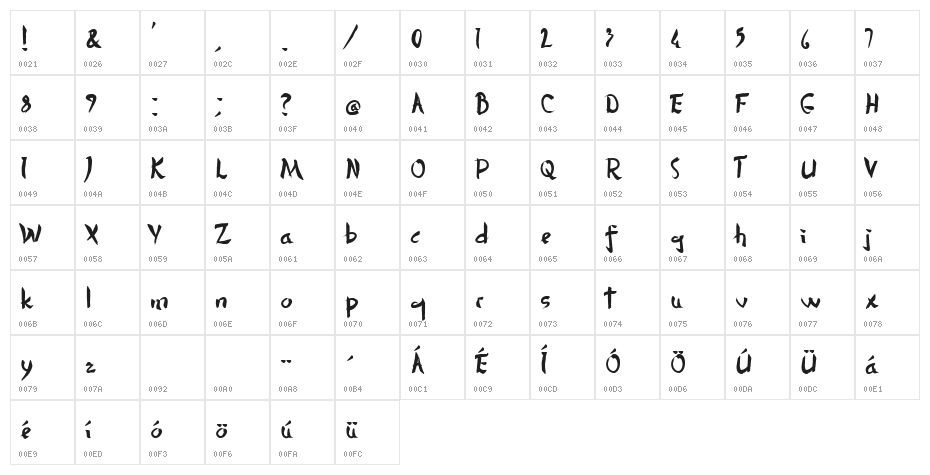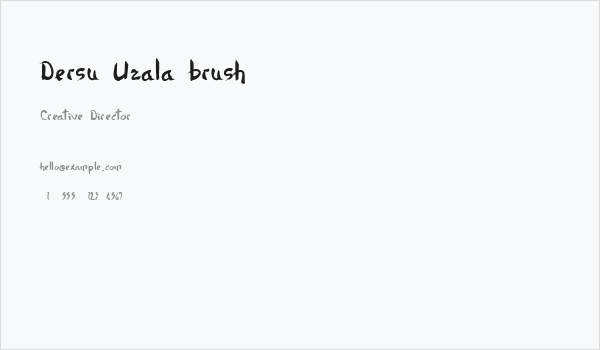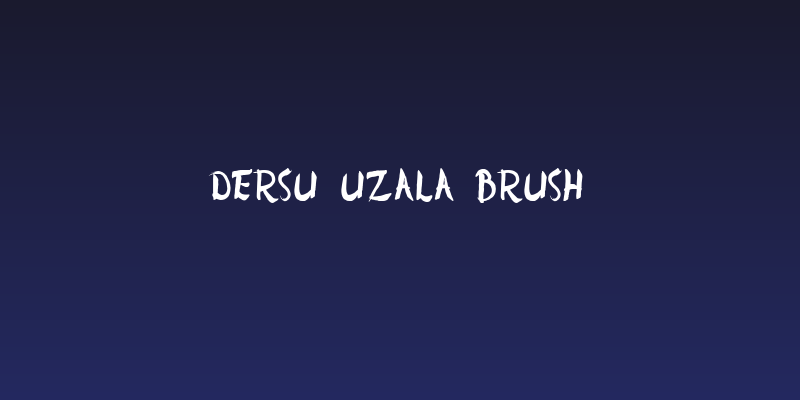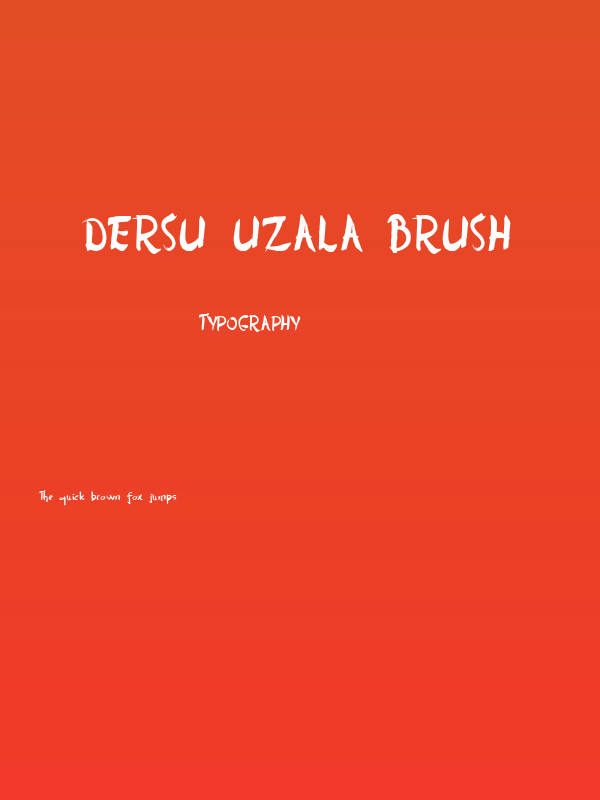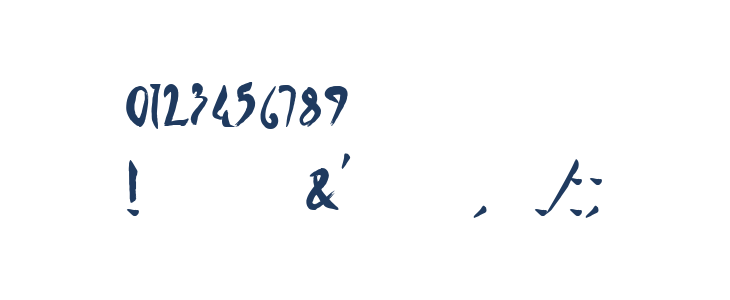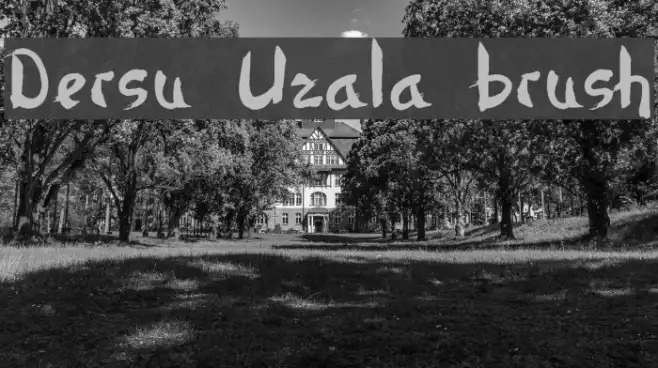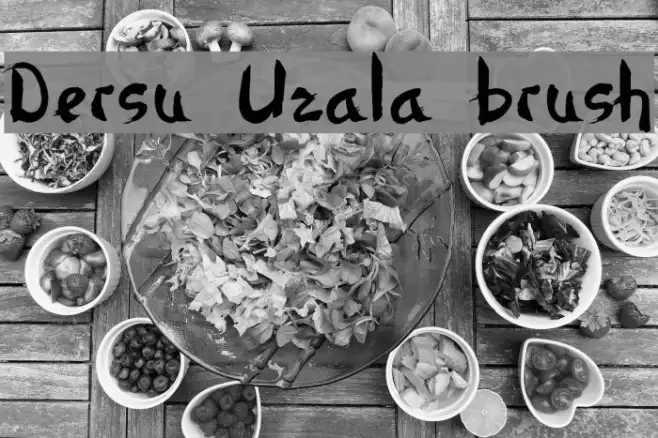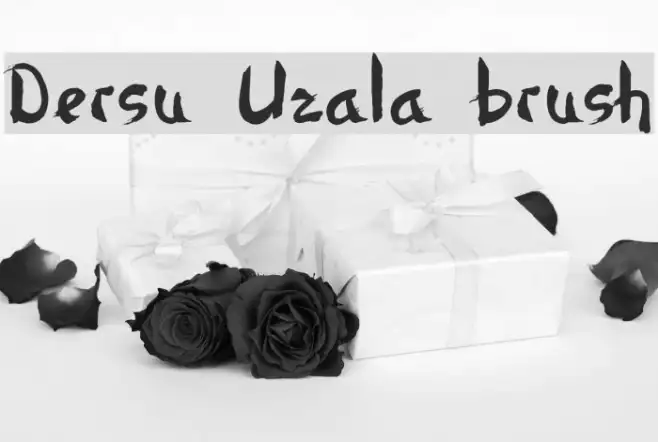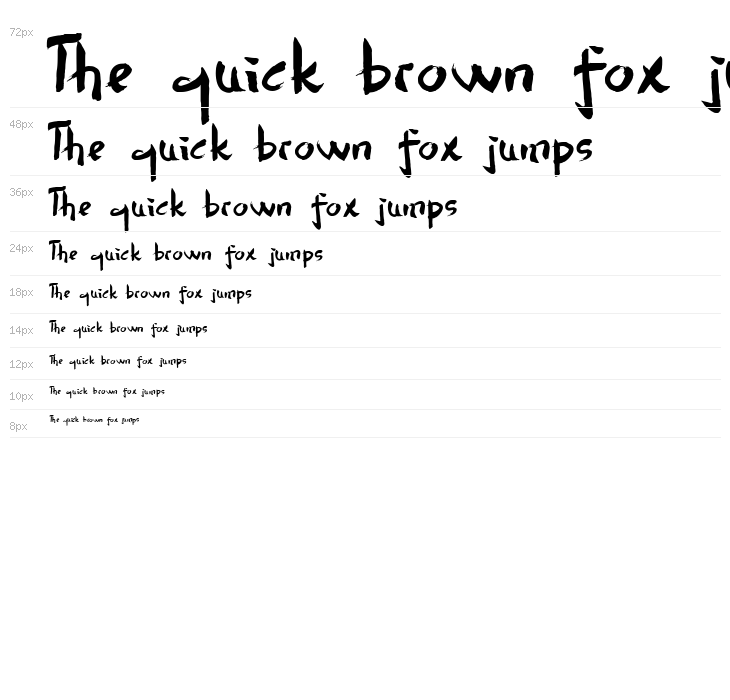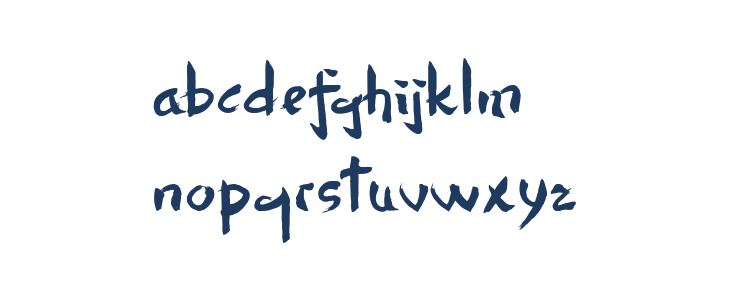
Dersu Uzala brush Font
Dersu Uzala brush Description
This font exudes a dynamic and expressive style, reminiscent of brush strokes with a natural and organic flow. The characters are bold and slightly irregular, giving a handcrafted appearance that adds a personal touch to any design. The uppercase letters are strong and commanding, while the lowercase letters maintain a fluid and artistic quality. The numerals and special characters follow the same brush-like aesthetic, ensuring consistency throughout. This font is perfect for projects that require a creative and artistic flair, such as posters, invitations, or branding materials that aim to convey a sense of individuality and creativity.
| Use Case | Headlines, Logos, Artistic projects |
| Proposed Projects | Ideal for artistic projects, branding, posters, and invitations that require a personal touch. |